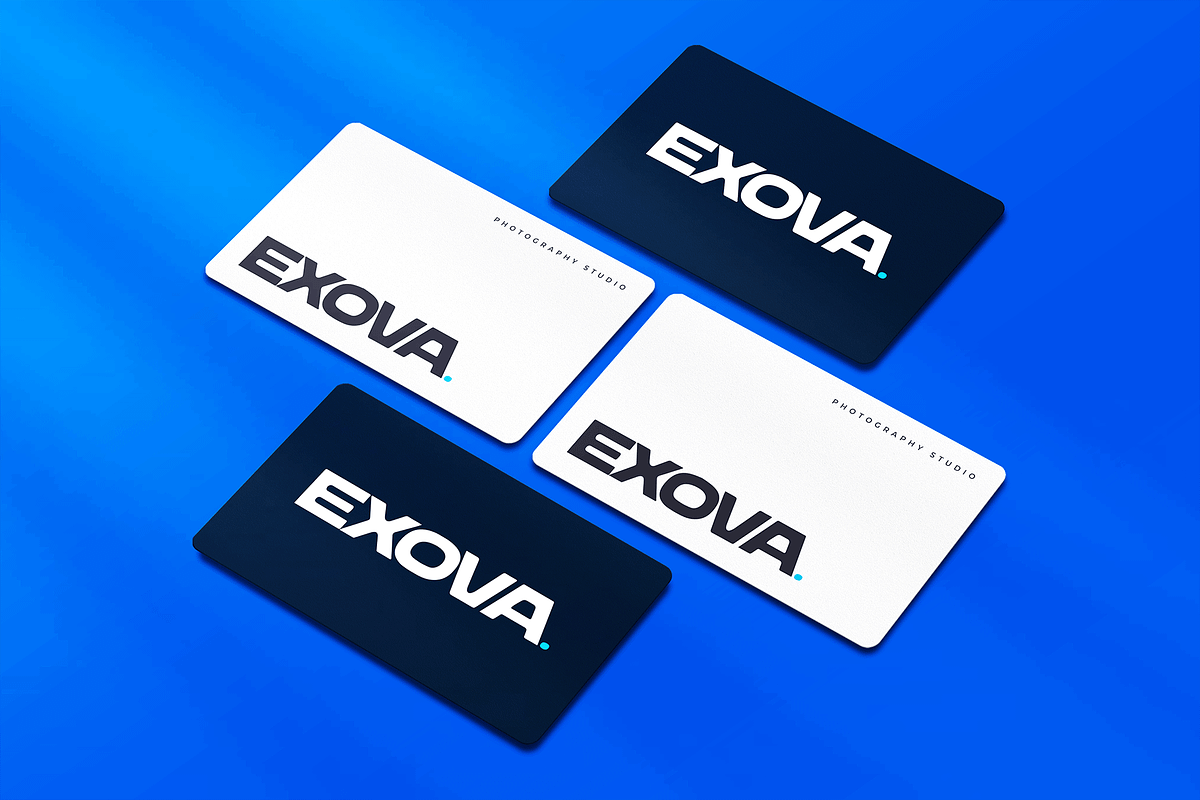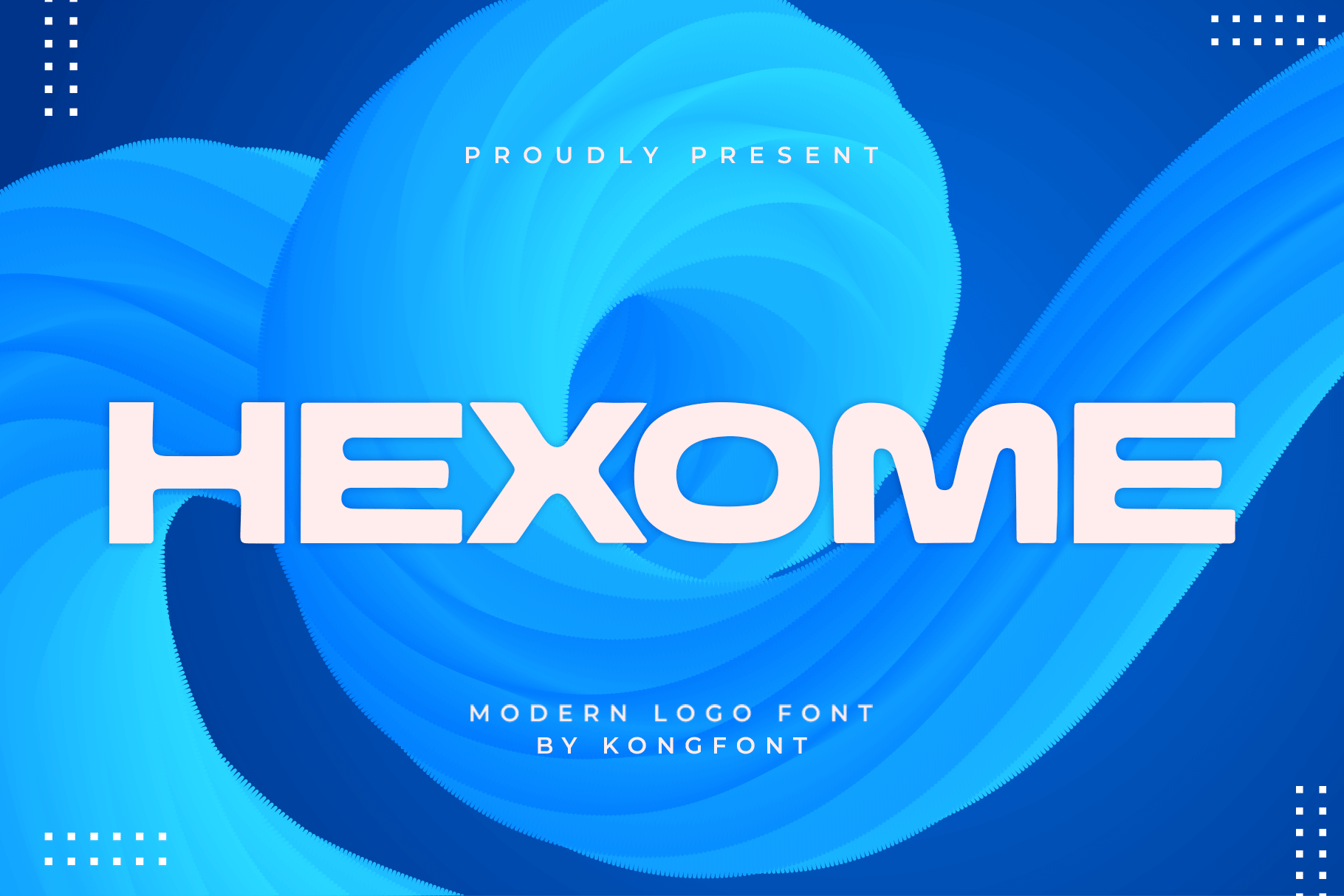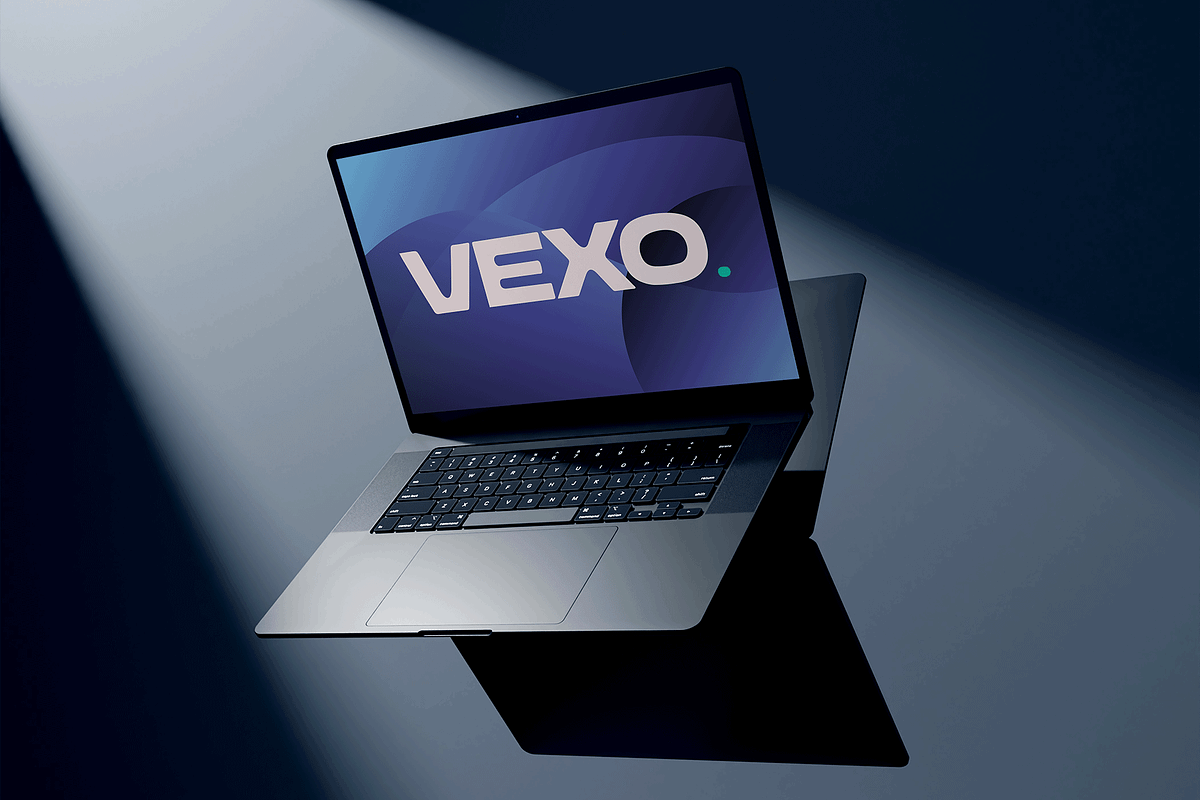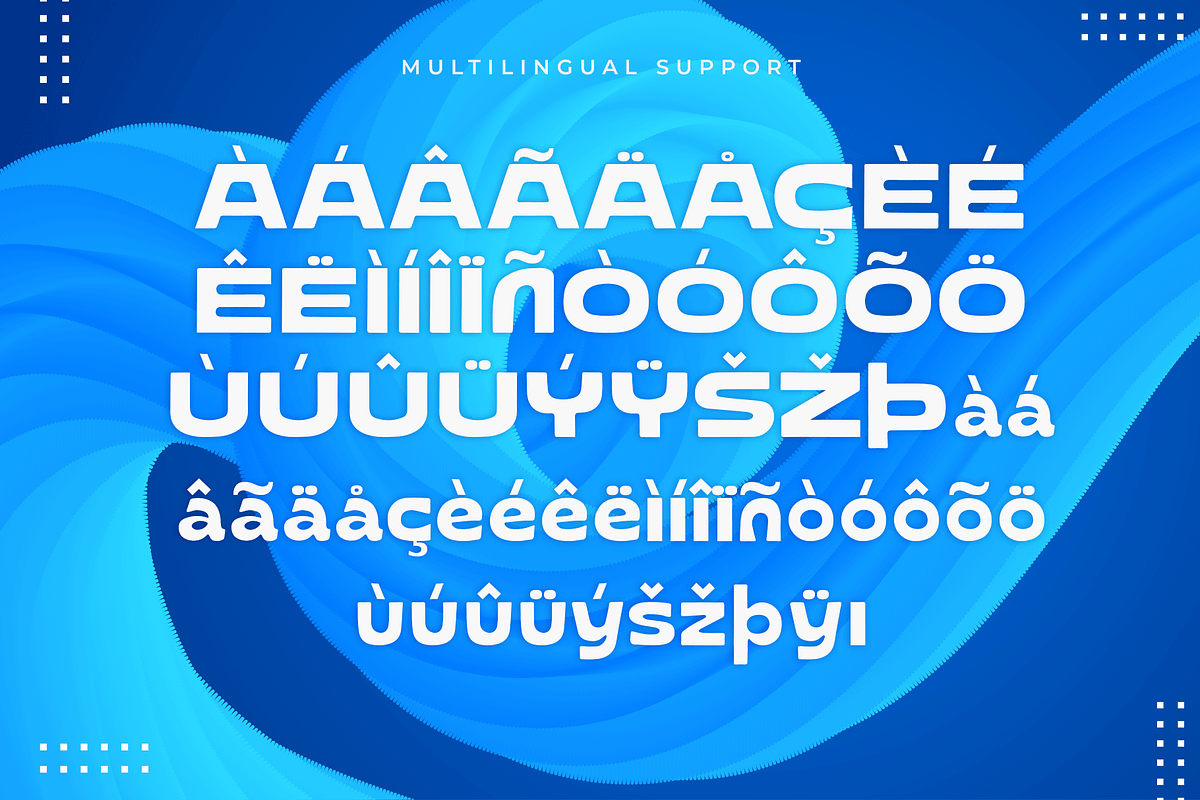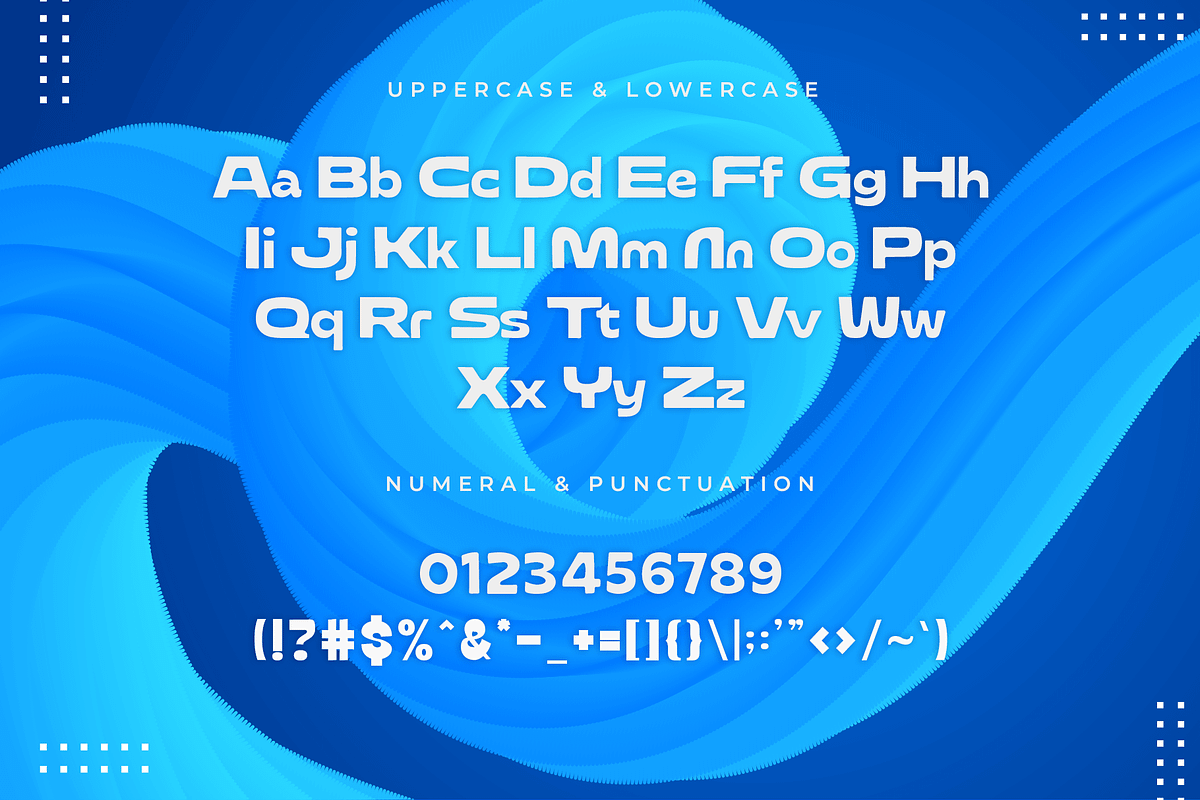
Hexome - Modern Logo Font
Meet "Hexome," a modern logo font crafted to bring sharp sophistication and clean aesthetics to your branding. Designed with contemporary geometric shapes and perfectly balanced proportions, Hexome delivers a sleek and professional look that resonates with modern design trends.
Ideal for logo design, corporate branding, packaging, and digital media, Hexome’s crisp edges and versatile letterforms allow it to stand out while maintaining readability. Whether you're building a tech-forward identity, launching a luxury product, or creating bold headlines, Hexome adapts seamlessly to elevate your visual presence.
With a complete character set including uppercase, lowercase, numerals, punctuation, and multilingual support, Hexome is a reliable choice for global brands and creative professionals. Its combination of minimalism and modern flair ensures your designs leave a lasting impression.